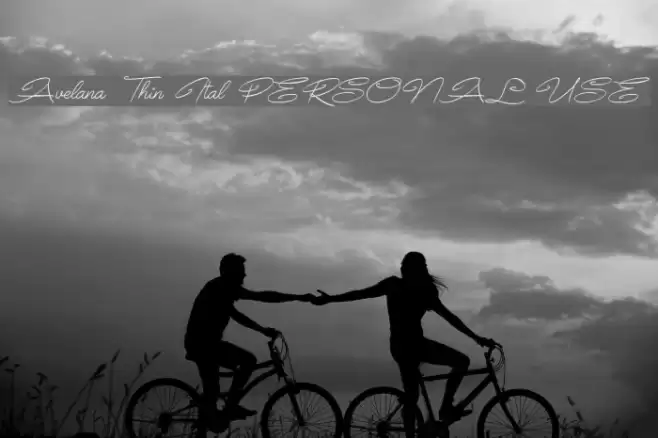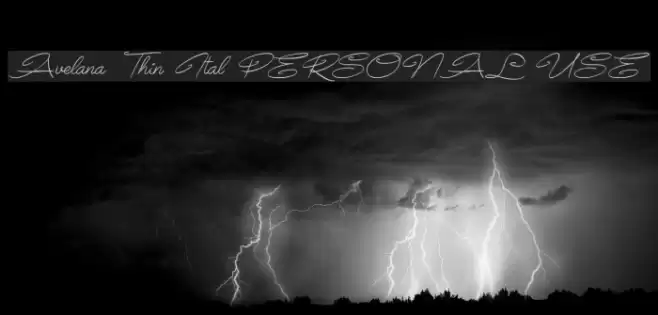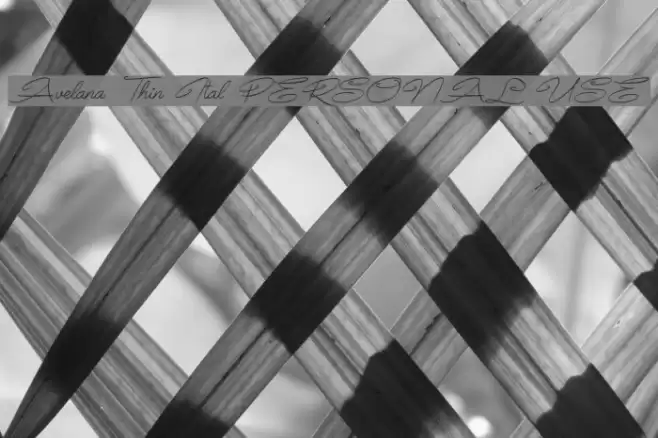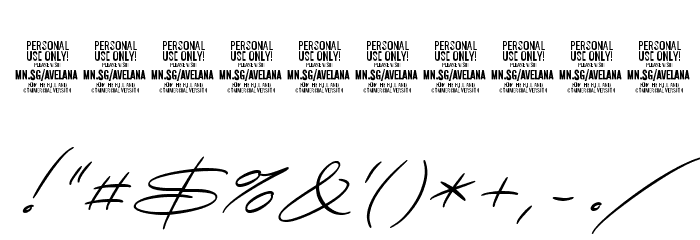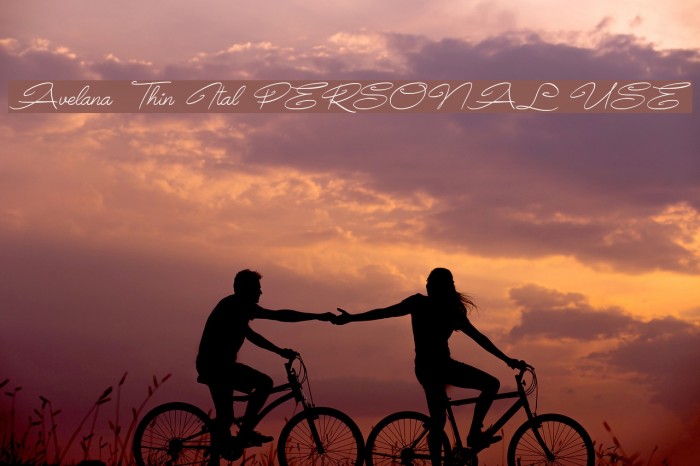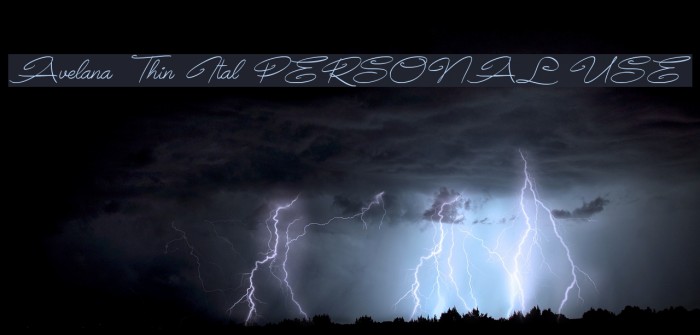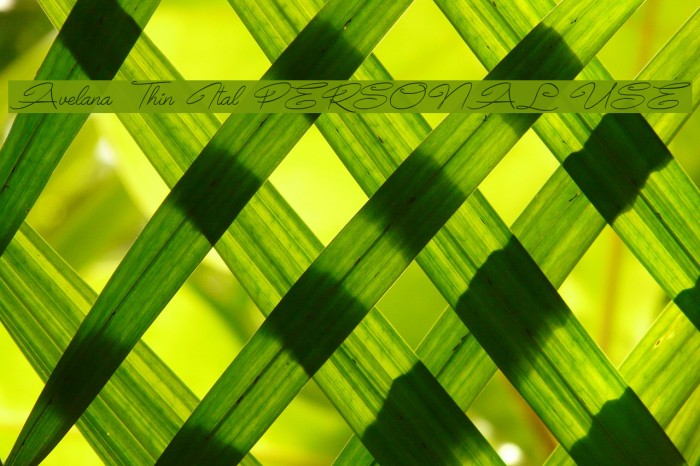
Avelana Thin Ital PERSONAL USE Font
Avelana Thin Ital PERSONAL USE Description
This elegant script font features a delicate and flowing design, characterized by its thin strokes and graceful curves. The uppercase letters exhibit a sophisticated flair with elongated lines and subtle connections, while the lowercase letters maintain a consistent fluidity, enhancing the overall aesthetic. The numerals and special characters are crafted with the same attention to detail, ensuring a cohesive look across all elements. This font exudes a sense of refinement and elegance, making it ideal for projects that require a touch of sophistication.
A thin, elegant script font with flowing, graceful curves from Uncategorized fonts.
- Proposed Projects: Ideal for wedding invitations, elegant branding, personal stationery, and upscale packaging.
- Weight: Light
- Overall Style: Elegant
- Use Case: Logos, Invitations, Branding